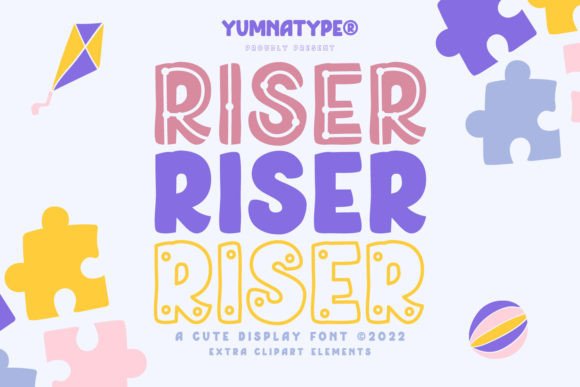
Introducing Riser Font, the ultimate choice for those seeking the best font for letter of intent. Created by Yumna_Type, this captivating font will elevate your designs to new heights.
With its unique uppercase display style, Riser Font exudes a warm, cute, and slightly futuristic aesthetic that will captivate your audience. Its clean and meticulously designed outline ensures easy readability, making it perfect for headers and titles of all sizes.
But what sets Riser Font apart from the rest is its ability to shine even brighter when paired with illustrations. With the addition of charming extras, this font becomes a true work of art, adding an extra layer of creativity to your projects.
Whether you're designing a personal letter, a professional presentation, or a heartfelt invitation, Riser Font will effortlessly convey your emotions and leave a lasting impression. Its versatility allows it to adapt to any style or theme, making it a must-have for designers and creatives alike.
Immerse yourself in a world of endless possibilities as you explore the vast range of applications for Riser Font. From website headers to branding materials, this font will breathe life into your creations and make them truly unforgettable.